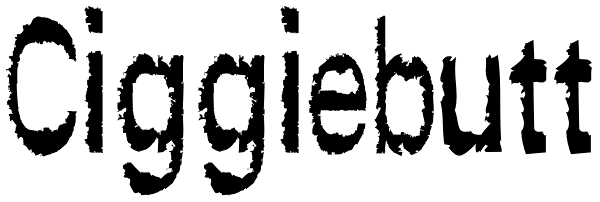
Ciggiebutt
Smokers welcome here! Use this font to evoke that distressed feel and smoke your competition! (Woo, that was a bad one.) Ciggiebutt is based on a condensed san serif type with very rough edges.